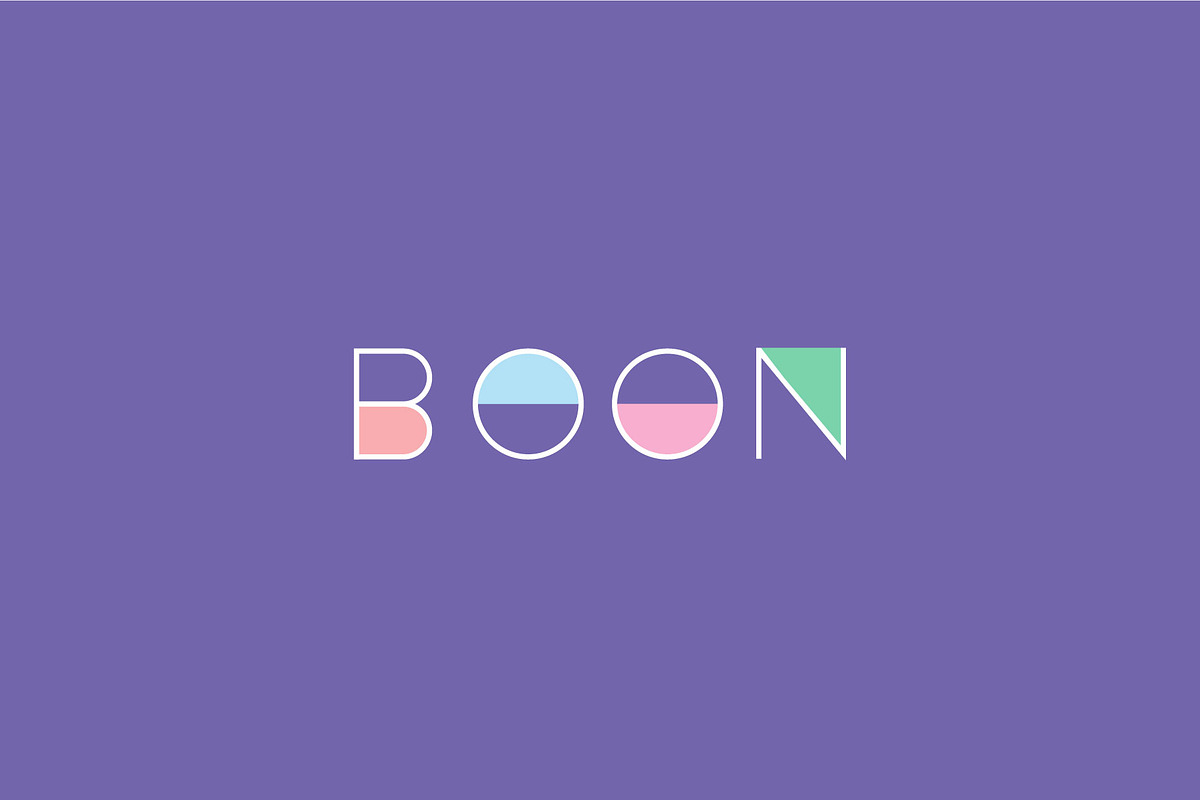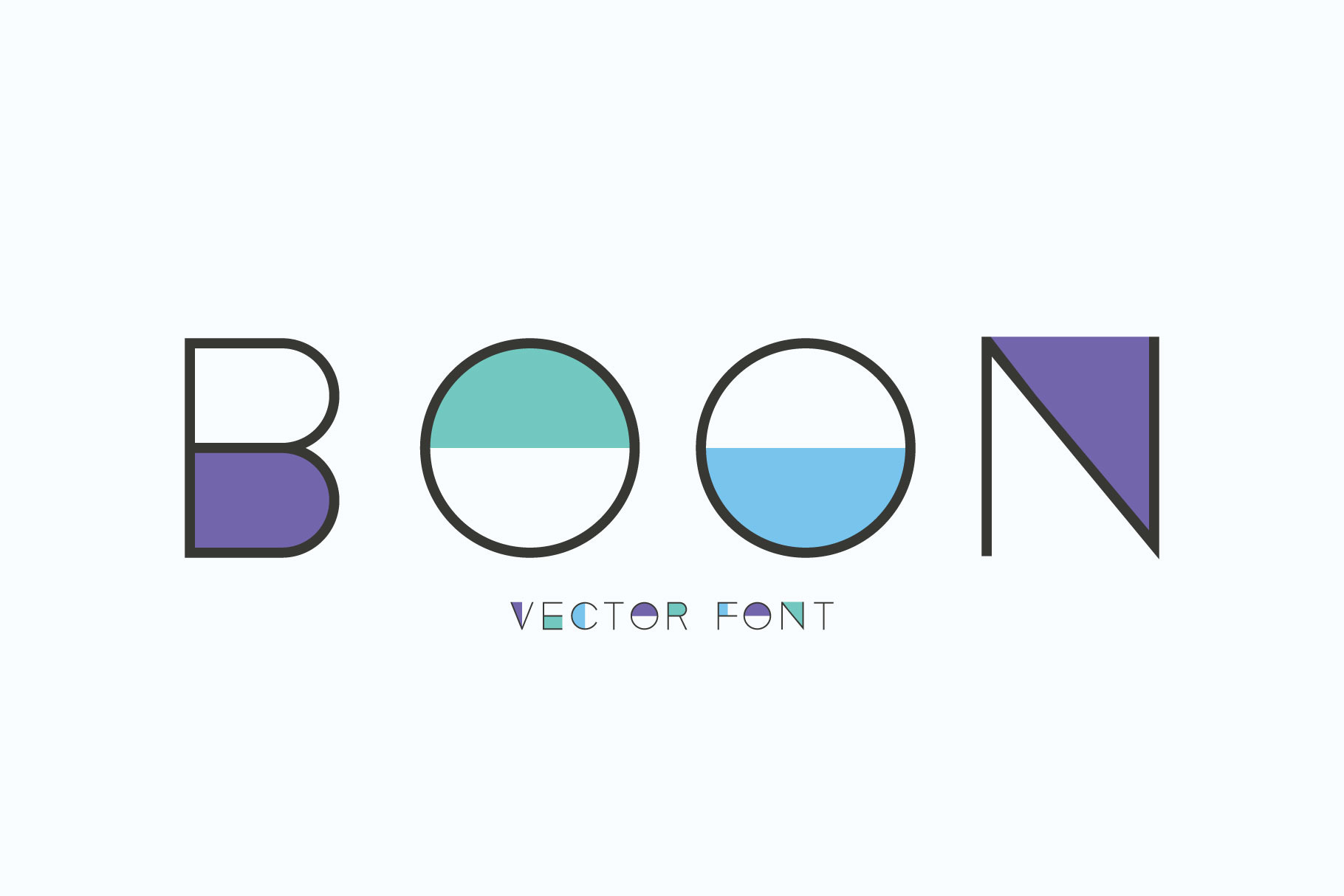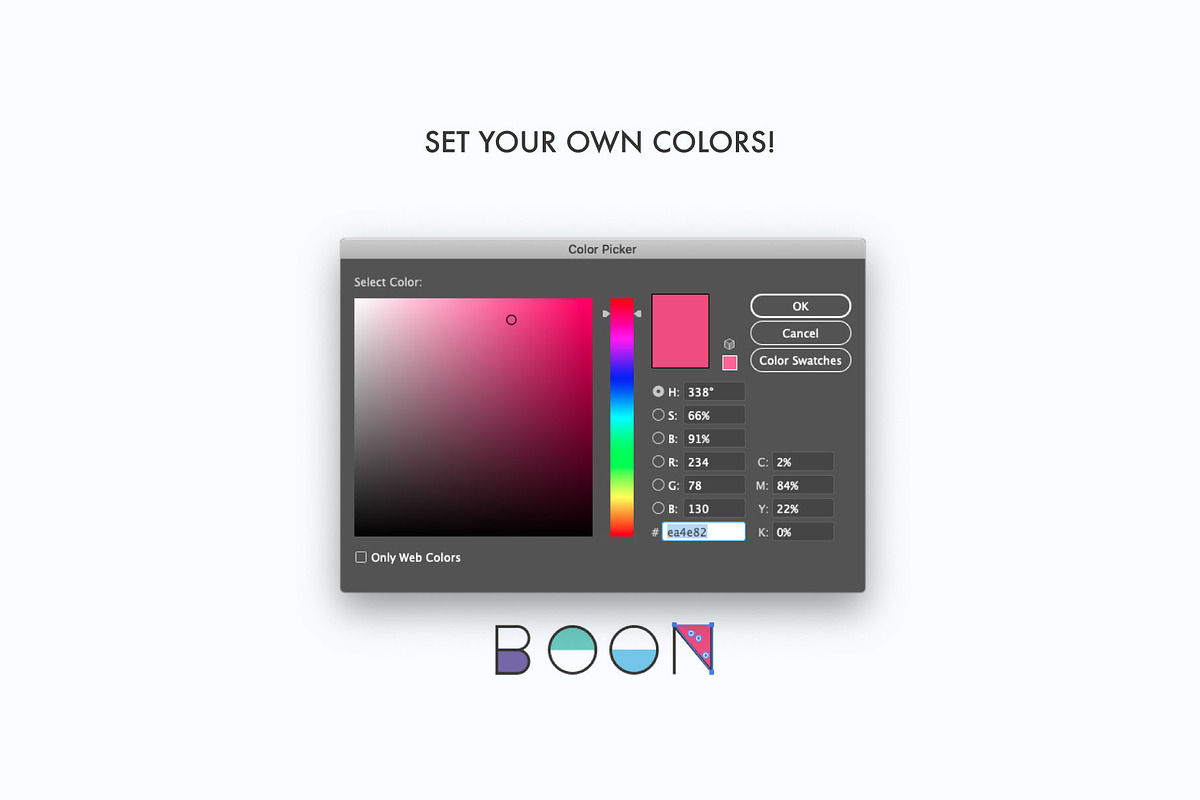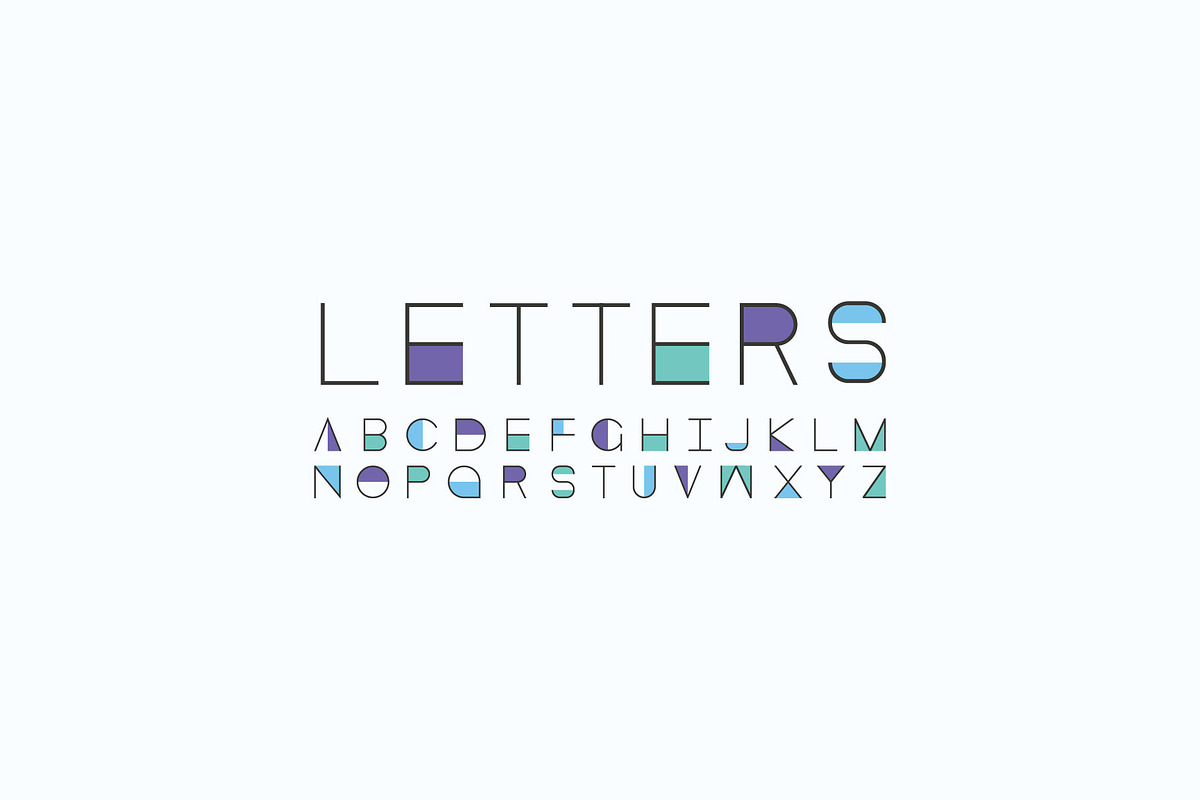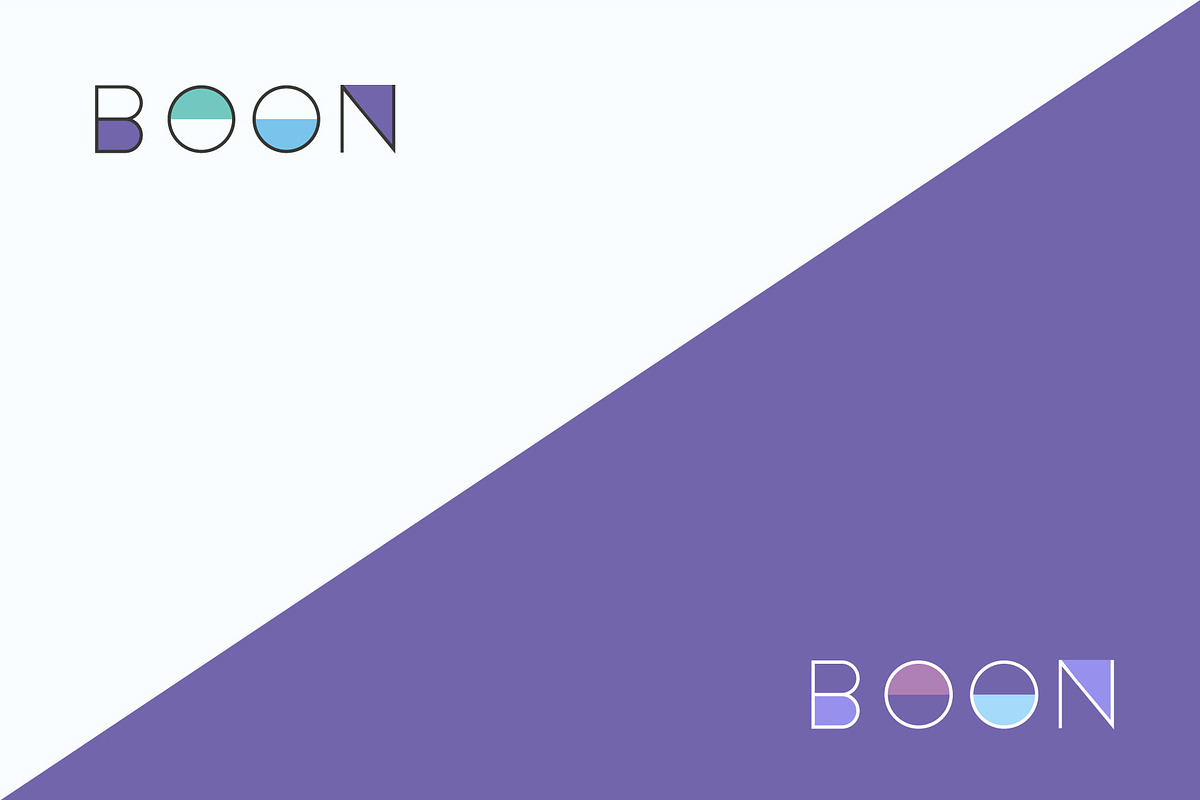
Vector Font. Boon
Boon – only vector funny, colourful and positive font. Is perfect for decorating any gray design
Boon Alphabet Variations
- Purple style
- Red Green Yellow
- White Stroke
- Uppercase Character
- Latin Letters